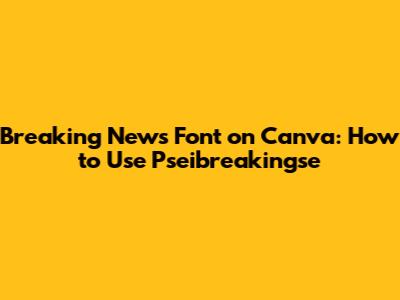
- Use Sparingly: Pseibreakingse is a bold font, so it's best used for headlines and titles, not for large blocks of text. Overusing it can make your design look cluttered and overwhelming.
- Contrast with Other Fonts: Pair Pseibreakingse with a simpler, more readable font for body text. This will help create a visual hierarchy and make your design easier to read.
- Consider Color: The color of your font can have a big impact on how it's perceived. Use colors that contrast well with your background to make your text stand out. Red and yellow are often used in breaking news headlines, but don't be afraid to experiment with other colors.
- Think About Placement: Where you place your text can also affect its impact. Experiment with different layouts to see what works best for your design.
- Maintain Consistency: While it's good to experiment, try to maintain some consistency in your design. Use the same font, colors, and layout throughout your project to create a cohesive look.
Hey guys! Ever wanted to make your designs pop with that urgent, attention-grabbing breaking news vibe? Well, you're in luck! Today, we're diving deep into how you can use the Pseibreakingse font on Canva to achieve just that. Whether you're creating social media graphics, eye-catching posters, or dynamic presentations, the right font can make all the difference. So, let's get started and explore everything you need to know about incorporating Pseibreakingse into your Canva projects.
What is Pseibreakingse Font?
First things first, let's talk about what exactly Pseibreakingse is. This font is designed to mimic the kind of typeface you often see in breaking news headlines. Think bold, impactful, and impossible to ignore! Using a font like Pseibreakingse can instantly add a sense of urgency and importance to your designs. It’s all about capturing attention and conveying information quickly and effectively.
When you're working on a project that needs to convey a sense of immediacy, Pseibreakingse is an excellent choice. Imagine you're designing a flyer for a flash sale, a poster for an important community event, or a social media graphic announcing a major update. In all these scenarios, using Pseibreakingse can help you grab your audience's attention right away. The font's strong, clear lines and bold appearance make it perfect for headlines and titles that need to stand out. Plus, it's surprisingly versatile; while it's often associated with news and announcements, you can also use it creatively in other contexts to add a unique touch to your designs. Just remember to use it sparingly and strategically to maximize its impact. Experiment with different sizes, colors, and placements to see what works best for your specific project, and don't be afraid to mix it with other fonts to create a balanced and visually appealing design.
Why Use Pseibreakingse on Canva?
So, why should you bother using Pseibreakingse on Canva? Well, Canva is an amazing tool for creating all sorts of designs, from social media posts to presentations. But sometimes, the default fonts just don't cut it. That's where Pseibreakingse comes in. It allows you to add a unique, attention-grabbing element to your designs that can really make them stand out. Plus, Canva makes it super easy to upload and use custom fonts, so you're not limited to their standard selection.
Using Pseibreakingse on Canva opens up a world of creative possibilities. Think about it: you can create striking visuals that instantly convey a sense of importance and urgency. Whether you're announcing a new product launch, promoting a limited-time offer, or sharing critical information, this font helps you communicate effectively and grab your audience's attention. Canva's user-friendly interface makes it simple to experiment with different font combinations, sizes, and colors to achieve the perfect look for your project. You can easily upload Pseibreakingse and start incorporating it into your designs within minutes. This means you can quickly create professional-looking graphics that stand out from the crowd. Additionally, Canva's collaborative features allow you to share your designs with team members and get feedback in real-time, ensuring that everyone is on the same page. By leveraging Pseibreakingse on Canva, you can elevate your designs and create visuals that truly capture the essence of breaking news.
Tips for Using Pseibreakingse Effectively
Now that you've got Pseibreakingse in your Canva arsenal, let's talk about how to use it effectively. Just because you can use it everywhere doesn't mean you should. Here are some tips to keep in mind: